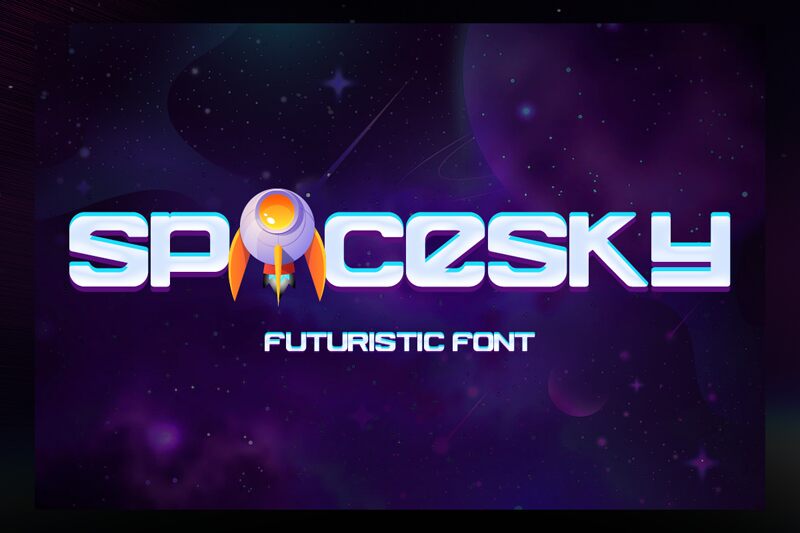
Spacesky
Spacesky, designed by Kong Font, is a bold, techno-inspired display font that exudes a futuristic, otherworldly charm. With its expanded, geometric letterforms and sharp, angular edges, this font radiates a sense of technological prowess and cutting-edge modernity. The stark, monochromatic color palette and clean, minimalist aesthetic lend an air of sleek sophistication, perfect for capturing the essence of high-tech industries, digital innovations, and avant-garde design.
This font's versatility shines through its ability to command attention in a variety of applications, from eye-catching headlines and impactful branding to dynamic user interfaces and captivating digital experiences. Spacesky's bold presence and distinct personality make it an ideal choice for projects that seek to convey a sense of technological advancement, scientific exploration, or futuristic vision.